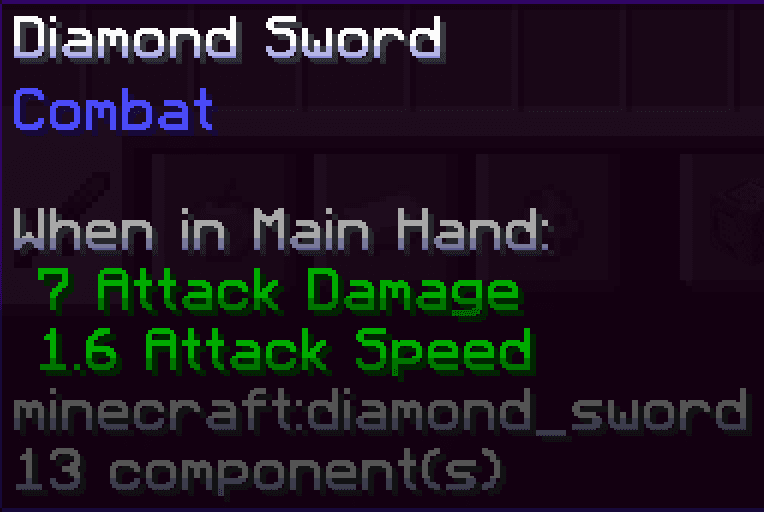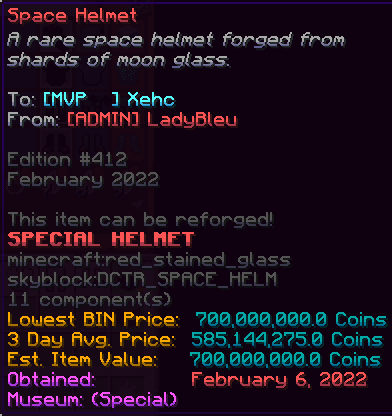
32x Smooth Shaded FontMinecraft resource pack for 1.21.10
a high detail smooth font! - based off the original "Smooth font - 32x" By apt9002 - edit by Sparky